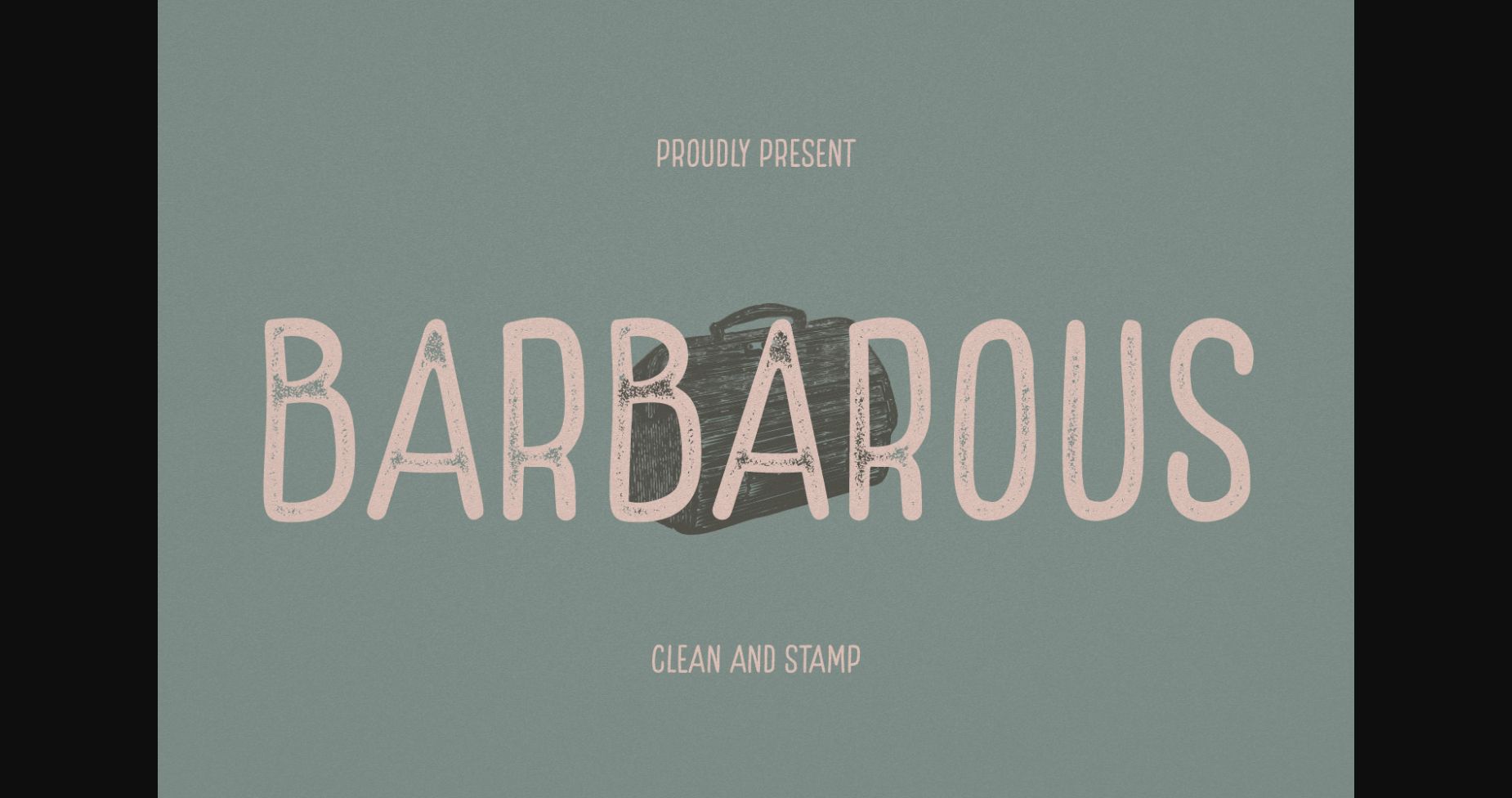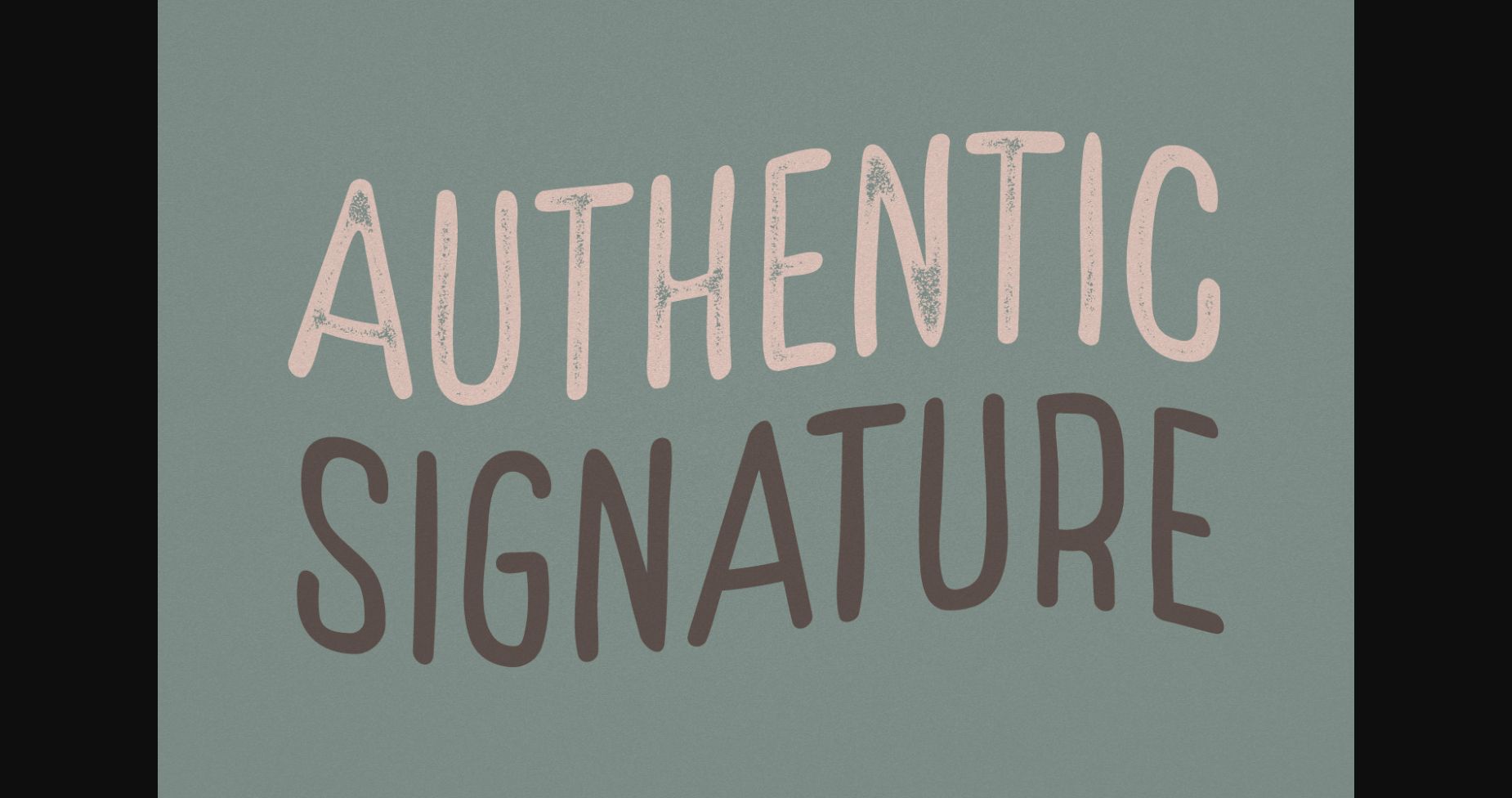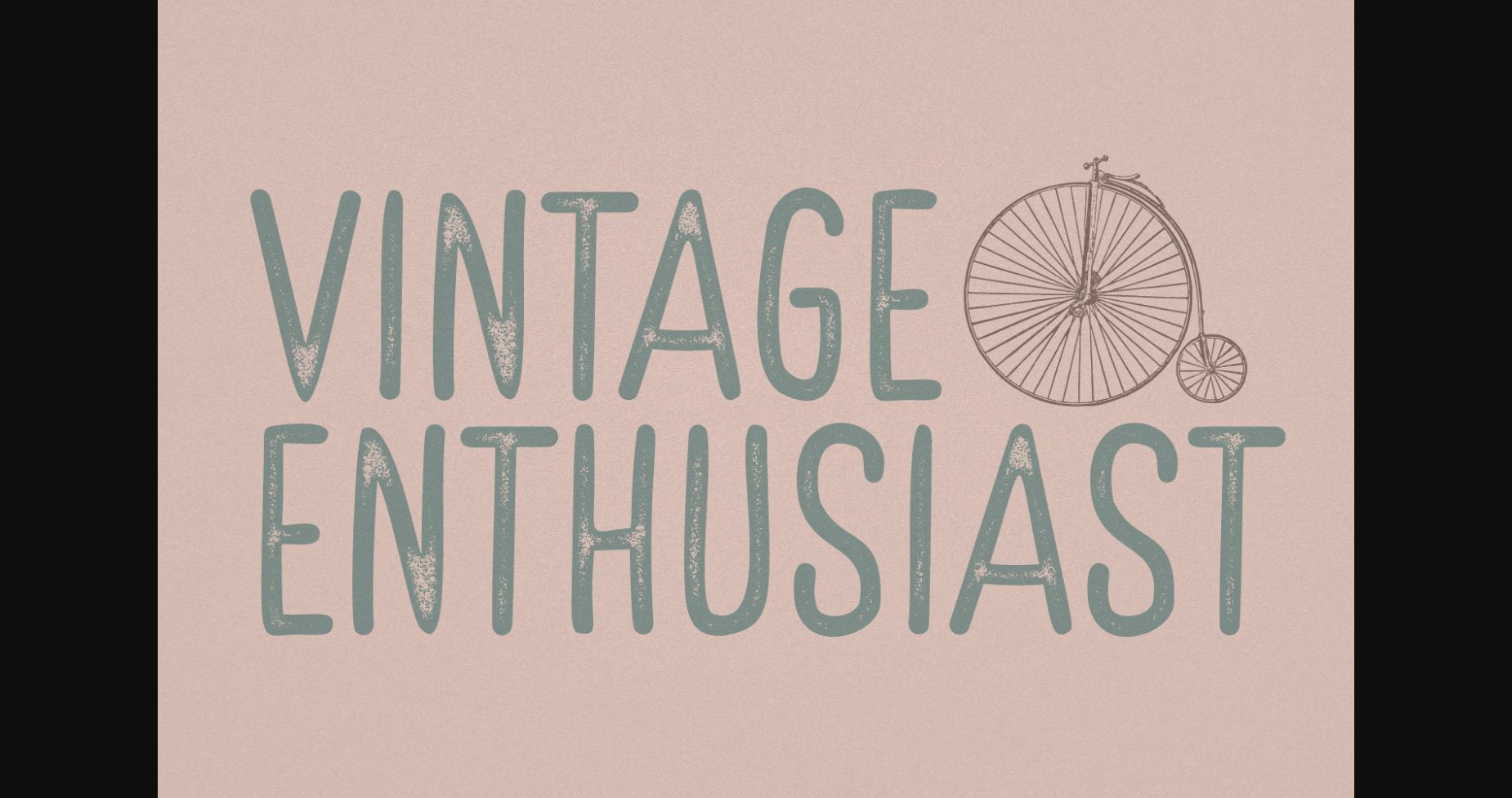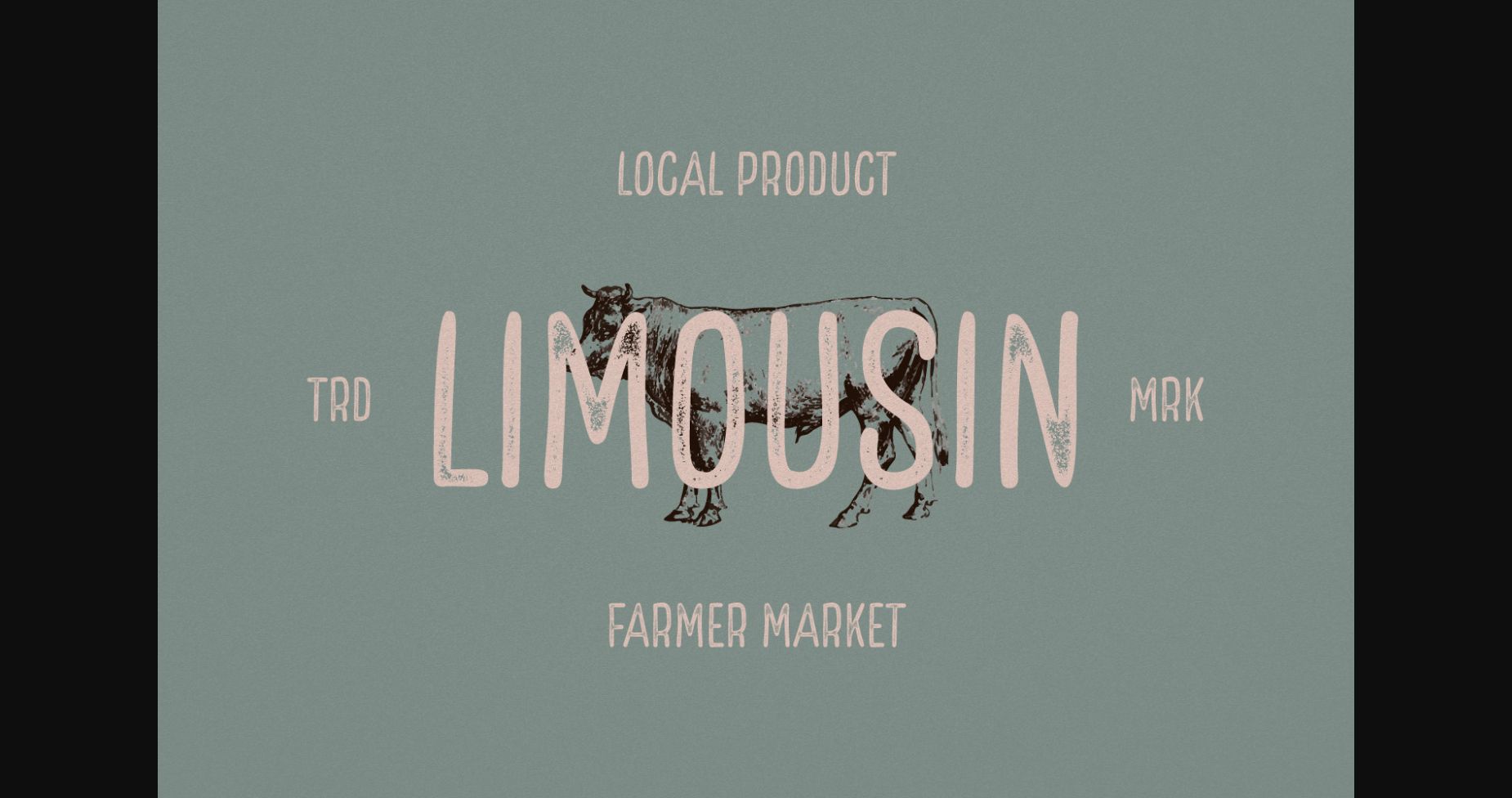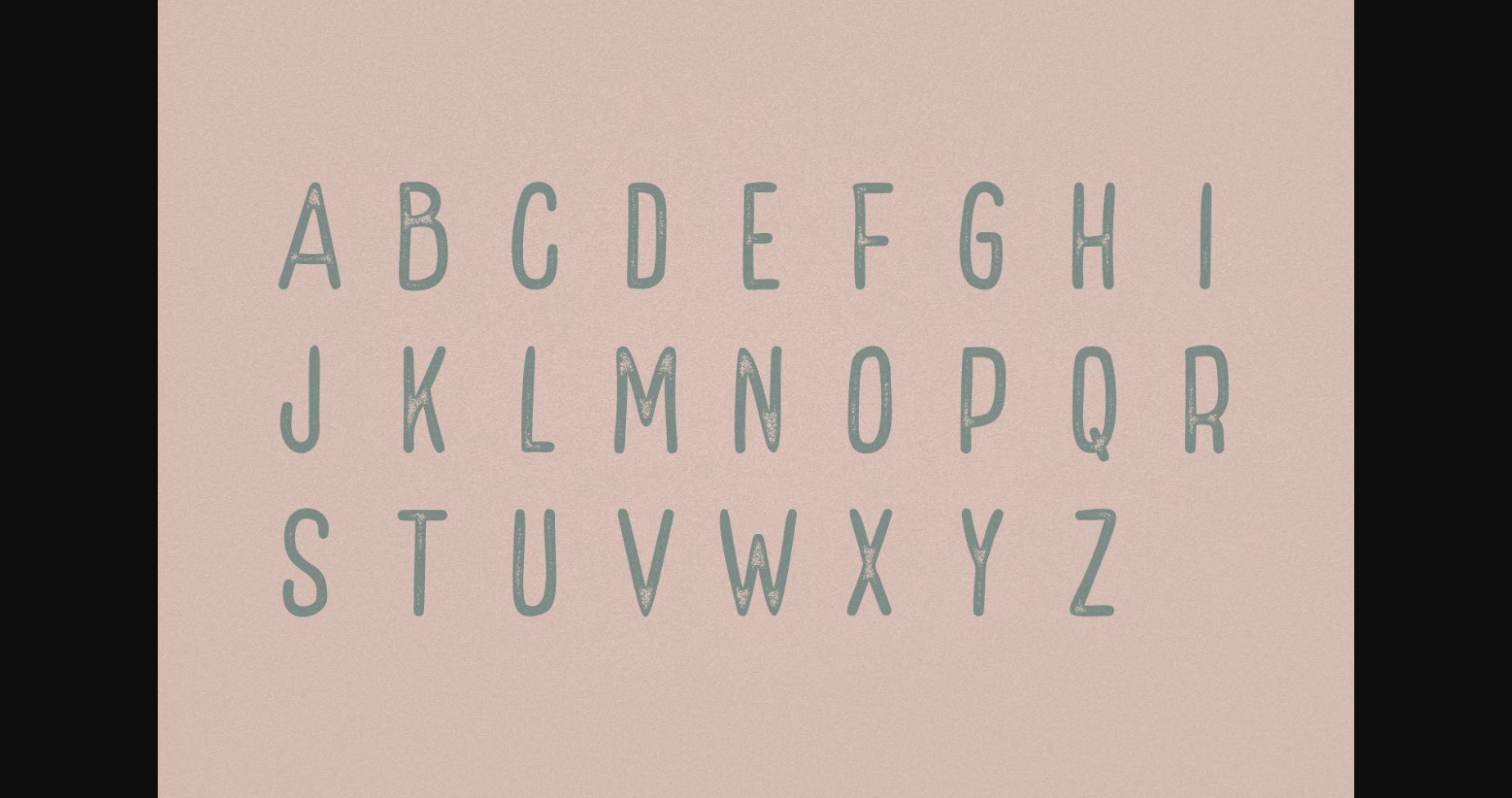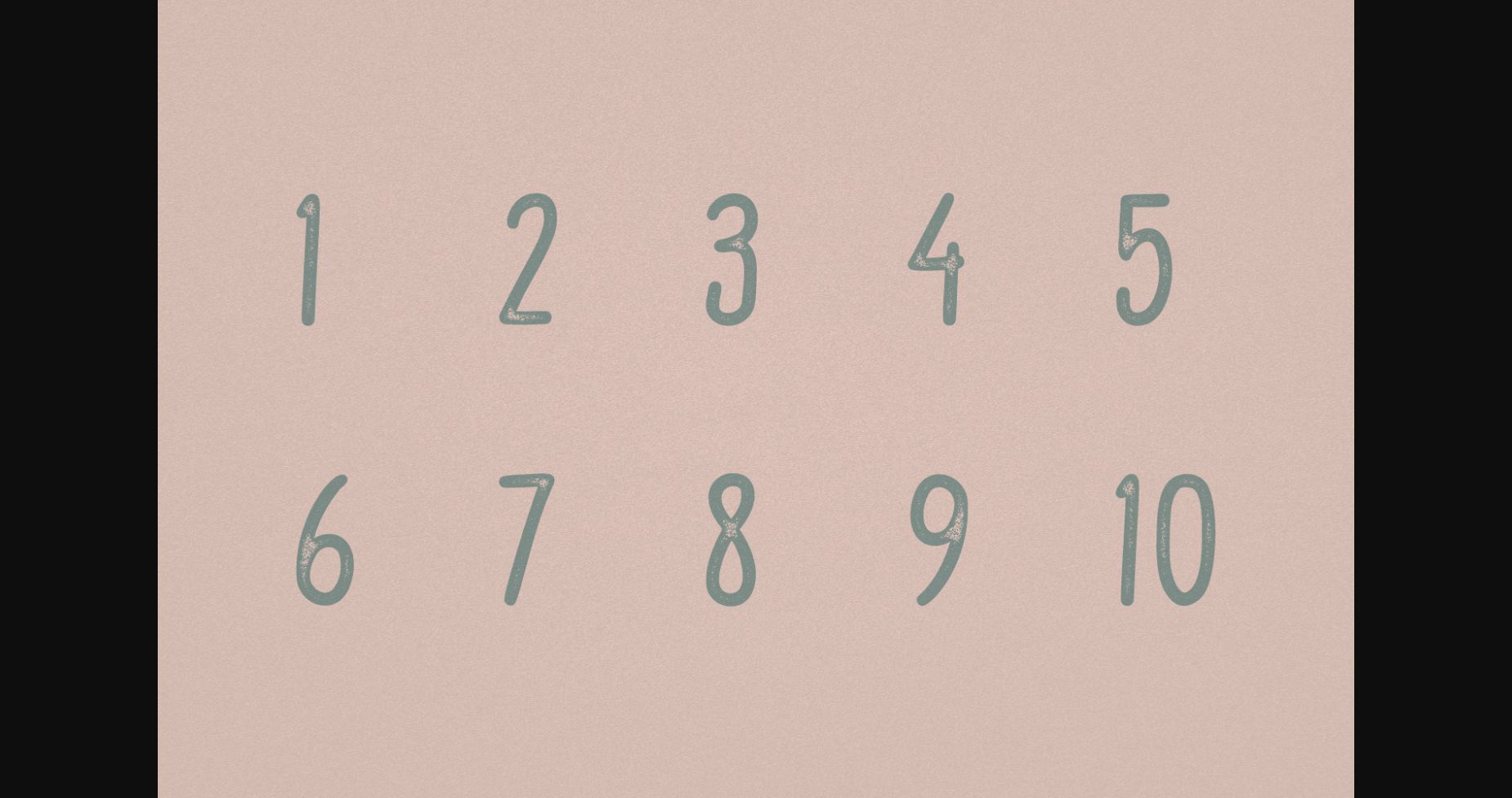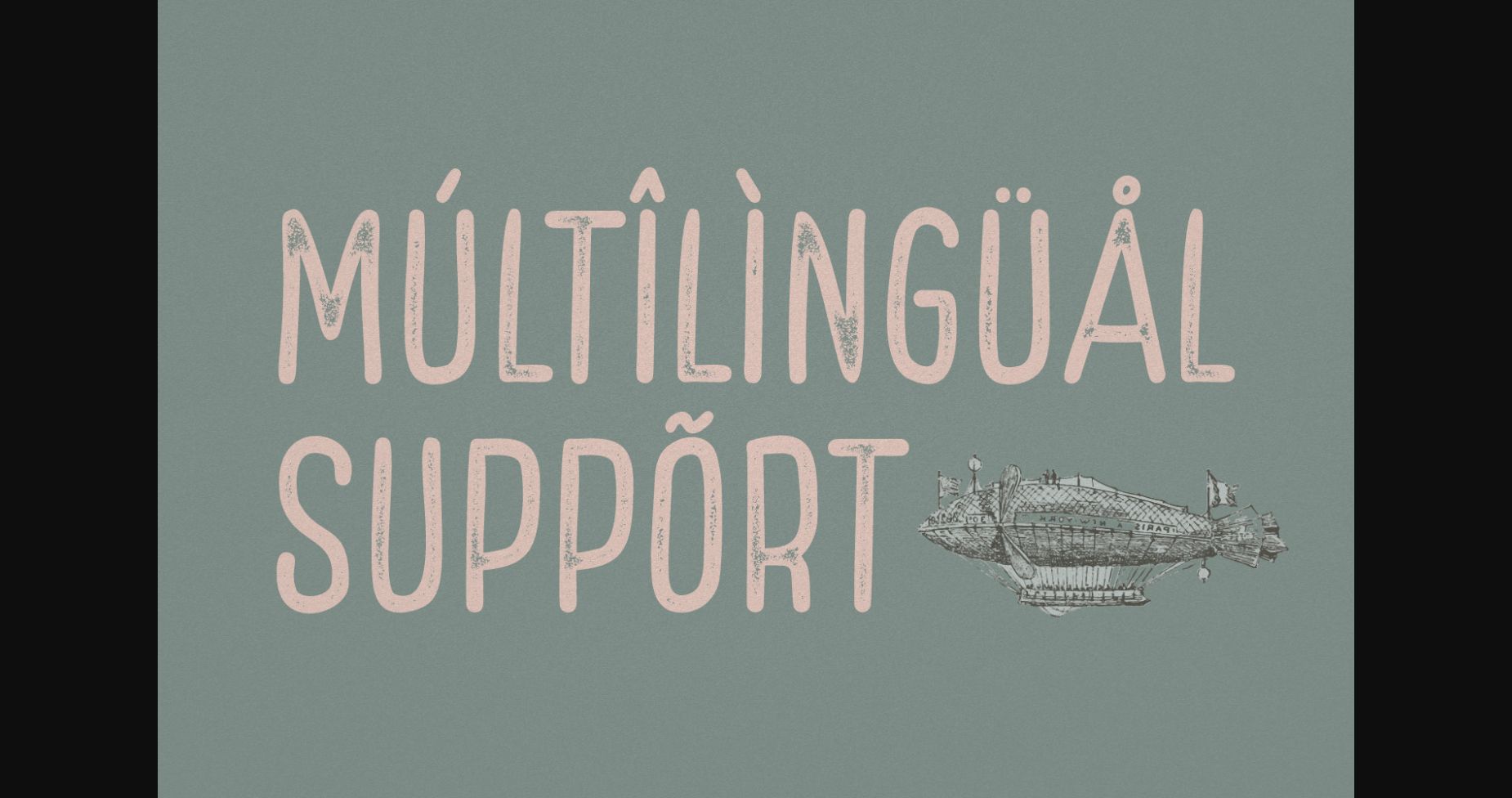
Barbarous Font
About Barbarous Font
Barbarous is a beautiful sans serif font featuring a vintage feel and a clean style to fit any project. The characters are simple and easy to read, perfect for creating headlines, banners, marketing materials, or anything else.